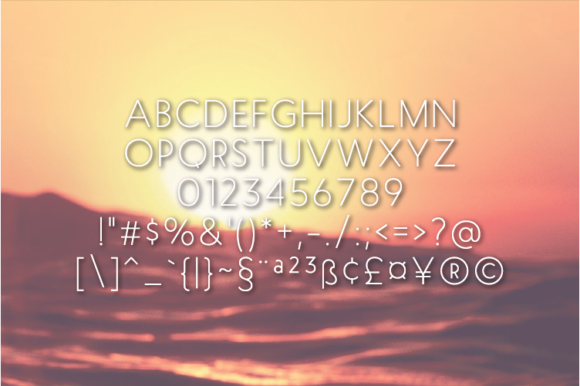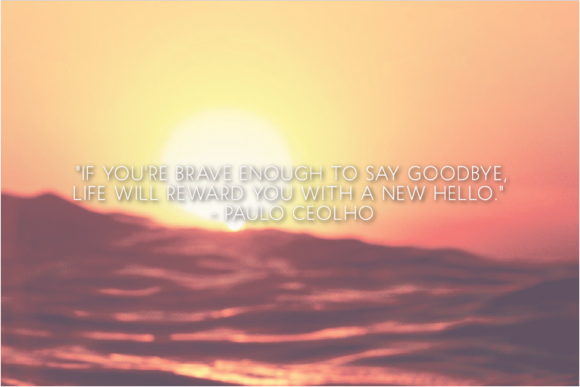
Introduction to Misselom Font
Do you remember the thrill of creating a design that perfectly captures the essence of a special event? Maybe it was a wedding invitation that made your friends and family swoon, or a birthday party flyer that set the tone for a memorable night. Whatever the occasion, as a designer, you know the importance of choosing the right font to elevate your creative project.
That’s where the Misselom Font comes in – a sleek and modern sans serif font that can be used in a wide range of applications, from displays and headers to invitations and save the dates. With its minimalist aesthetic and thin lettering, Misselom Font is the perfect design resource for designers looking to add a touch of elegance to their work.
What makes Misselom Font truly valuable is its versatility and high quality. Available for free download, this font can be easily customized to fit any design need, and its transparent background makes it easy to integrate with any background image or color scheme. Whether you’re working on a personal project or a commercial client, Misselom Font is sure to be a valuable addition to your design toolkit.
Key Features of Misselom Font
- Unique and Creative Design: Misselom Font is a perfect design resource for any creative project that requires a touch of elegance and sophistication.
- High Quality Typography: With its high quality typography, Misselom Font is ideal for any project that demands precision and attention to detail.
- Transparent Background: The transparent background of Misselom Font allows for seamless integration with any design element, giving you complete creative control.
- Resolution: Misselom Font is designed at a resolution of 300 DPI, making it perfect for high-resolution printing and digital applications.
- Font Size: The font size of Misselom Font is scalable, allowing you to use it in a variety of design contexts, from small text to large headings.
Honest Review: Misselom Font
As a designer, I’m always on the lookout for high-quality design resources that can elevate my creative projects. The Misselom Font caught my eye, and I decided to give it a try. Here’s my honest review.
- Unique and creative design: The Misselom Font has a distinctive look that sets it apart from other fonts.
- High-quality glyphs: The font’s glyphs are well-crafted and display consistently across different platforms.
- Transparent background: This feature makes it easy to use the font on various backgrounds, which is a huge plus.
- Limited character set: The Misselom Font has a relatively small character set, which may not be suitable for projects that require a wide range of characters.
Overall, the Misselom Font is a solid design resource that can add a touch of creativity to your projects. While it has some limitations, its unique design and high-quality glyphs make it worth considering for your next creative project.
Tips for Getting the Most Out of Misselom Font
To get the most out of Misselom Font, try using it in combination with other design resources, such as graphics and images. This will help you create unique and visually appealing designs.
Common Use Cases for Misselom Font
Misselom Font is commonly used in a variety of creative projects, including:
Infographics, brochures, and flyers